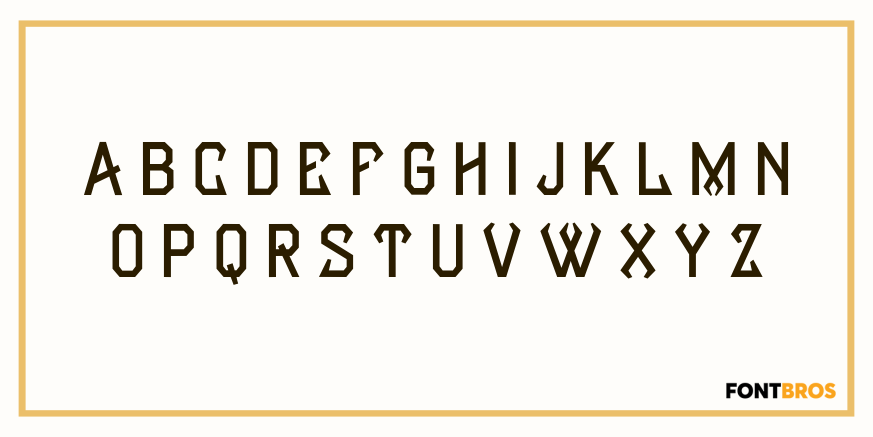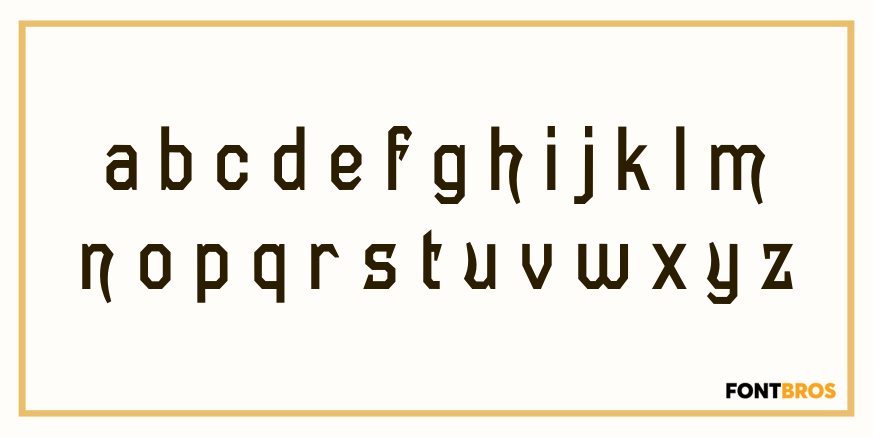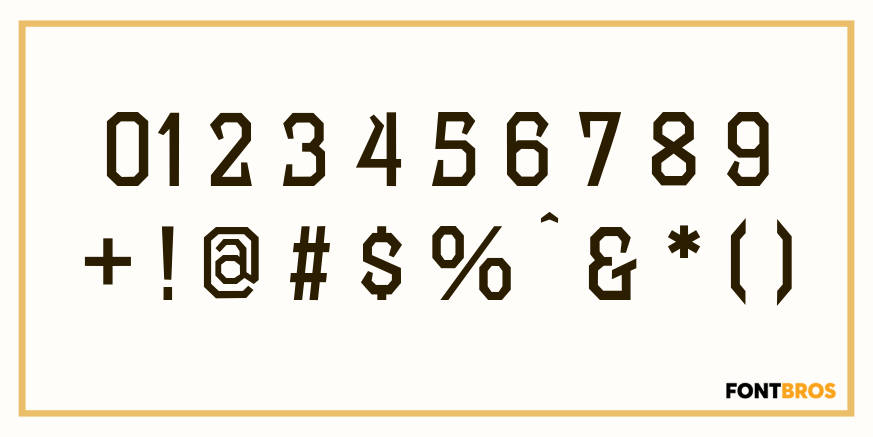
Manifesto Bold
Font Family by Solotype
In digitizing this old font, we took great liberties with the design, removing some jarring elements. The result reads much more smoothly than the original, retaining the overall character of the original.
Hope you don't mind, Mr. Beeler.